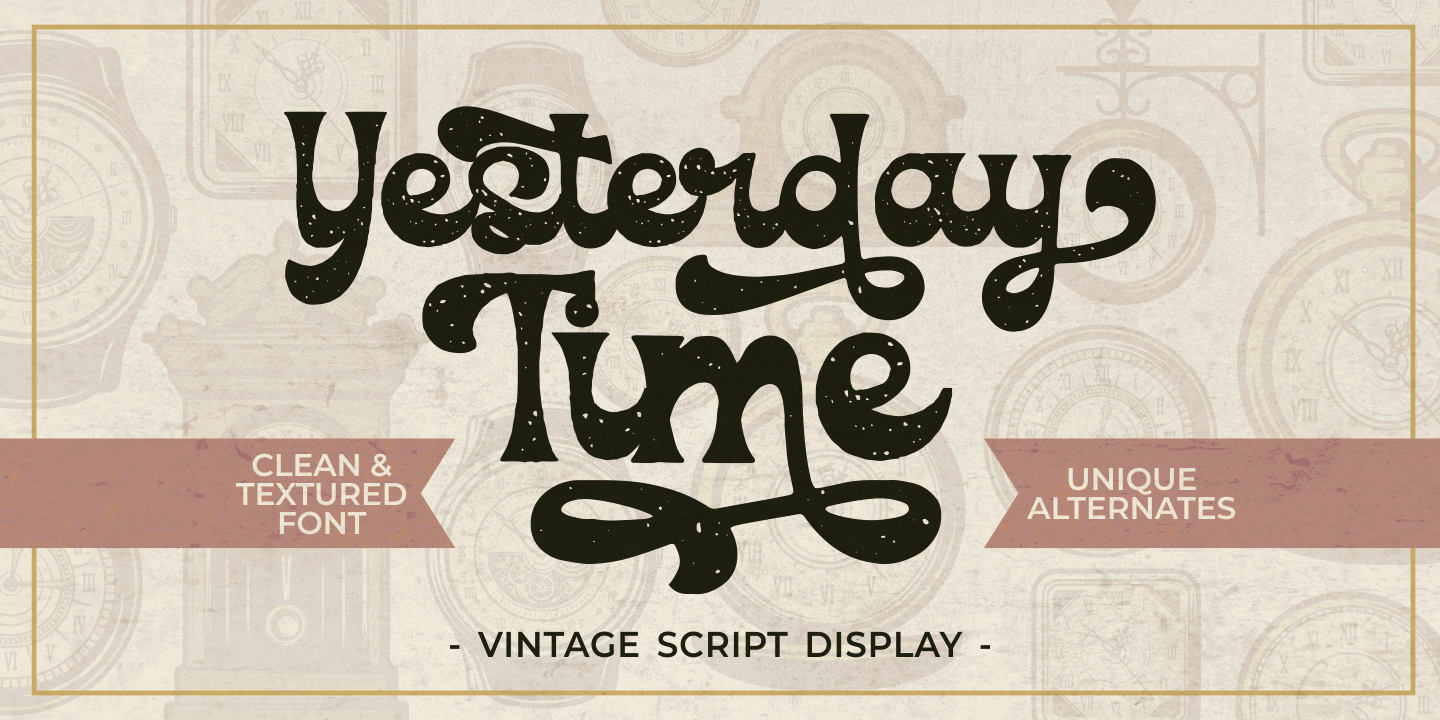
Yesterday Time Font is a captivating and nostalgic typeface, perfectly suited for projects that aim to evoke a sense of vintage charm, classic storytelling, and cherished memories. Imagine it gracing the covers of historical novels, adding a timeless and elegant touch to vintage-inspired branding, or providing a sentimental aesthetic for personal memoirs and scrapbooks. It's also an excellent choice for crafting distinctive event invitations with a retro flair, designing unique labels for artisanal goods, or infusing blog headers and social media posts with an authentic, bygone-era personality. If you're looking to convey tradition, warmth, and an undeniable sense of wistful appeal, Yesterday Time Font is an outstanding selection.
What makes Yesterday Time Font so exciting? It’s its unique ability to combine classic stylistic elements with a touch of modern refinement, creating a typeface that feels both deeply familiar and refreshingly versatile. This font often features elegant curves, subtle imperfections, or a handcrafted quality that gives it an undeniable authenticity and warmth, making each word feel like a cherished relic from the past. Despite its decorative flair, Yesterday Time Font is meticulously designed to maintain excellent readability, ensuring your message is communicated beautifully and with a personal, engaging tone. Designers will appreciate its versatility in creating designs that feel both intimately personal and professionally polished, making it a go-to choice for brands and projects that aim to connect with their audience through compelling visual storytelling that nods to the past.
The Yesterday Time Font family is typically designed to showcase a singular, beautifully crafted script or display style that perfectly embodies its unique appeal. While it may not feature extensive weight variations like a traditional text font, its strength lies in its inherent personality and often includes a rich set of stylistic alternates, ligatures, or swashes that enhance its handcrafted aesthetic. These subtle details ensure that Yesterday Time Font maintains its cohesive and captivating look across various applications, from elegant brand endorsements to charming personal correspondence. Discover the authentic charm of Yesterday Time Font Free Download and infuse your designs with an unforgettable sense of history and artistry.